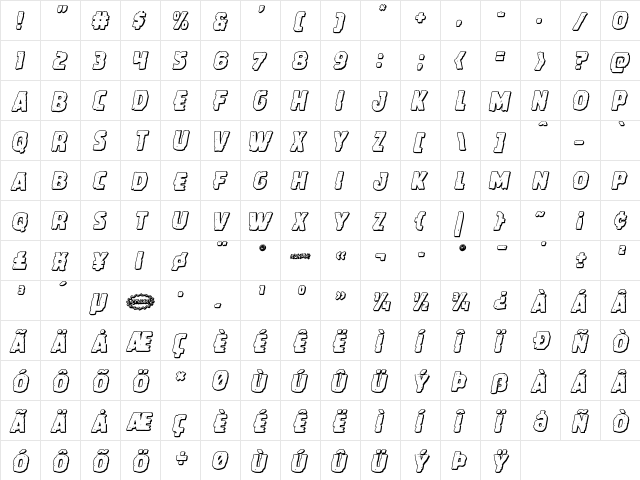
Howlin' Mad Shadow Italic Italic
Design Context for Howlin' Mad Shadow Italic Typeface
Howlin' Mad Shadow Italic brings ornamental detail and strong personality to headlines and identities, where visual impact matters more than quiet functionality. The slanted form adds forward momentum and visual energy.
Font Pairing: Pair with a clean neutral sans-serif for body copy to let Howlin' Mad Shadow Italic's character lead without overwhelming the composition.
Pro Tip: Treat Howlin' Mad Shadow Italic as the centrepiece of your typographic hierarchy. One strong heading set in a decorative face can carry an entire layout.